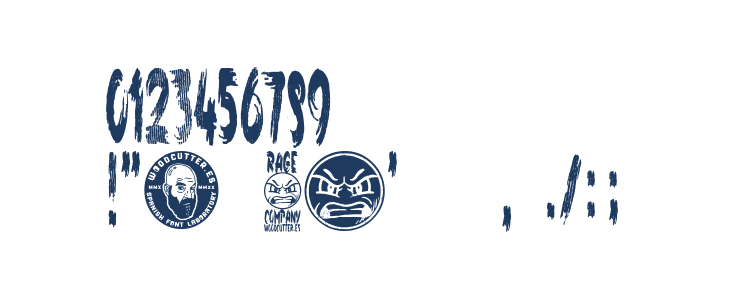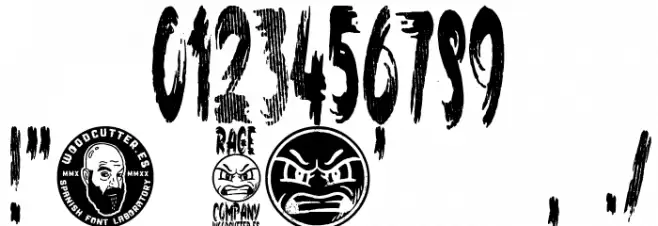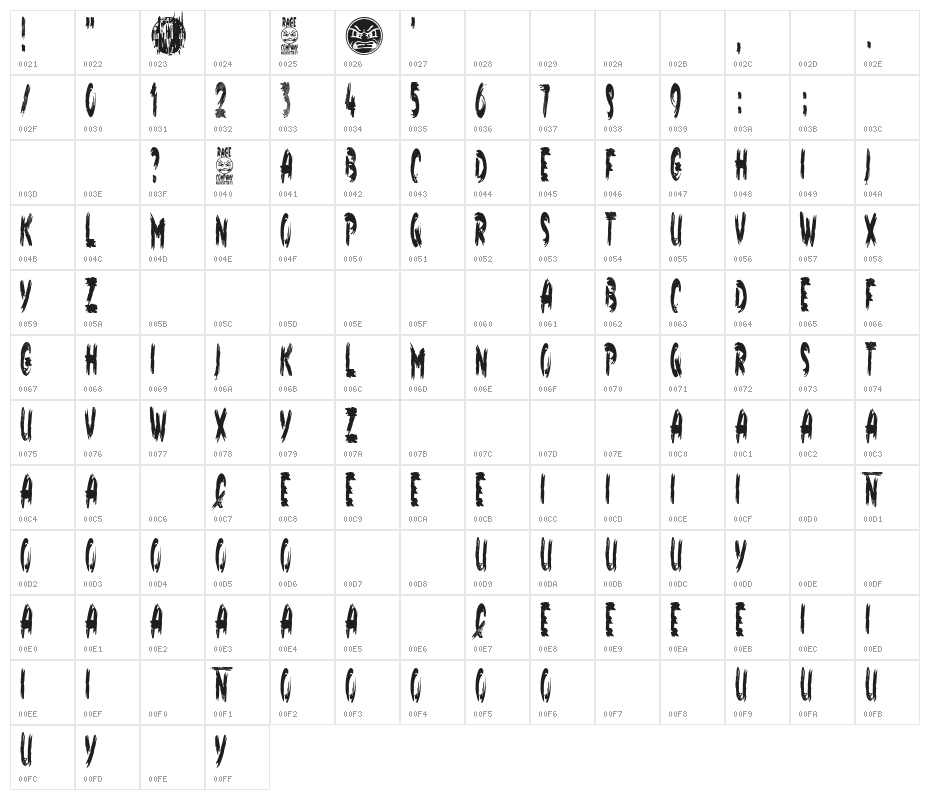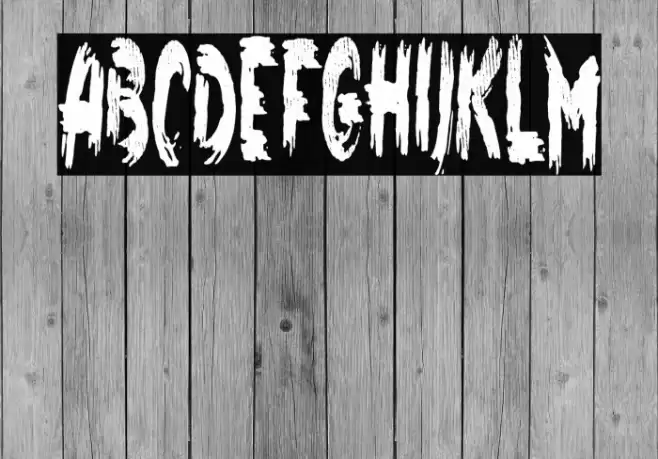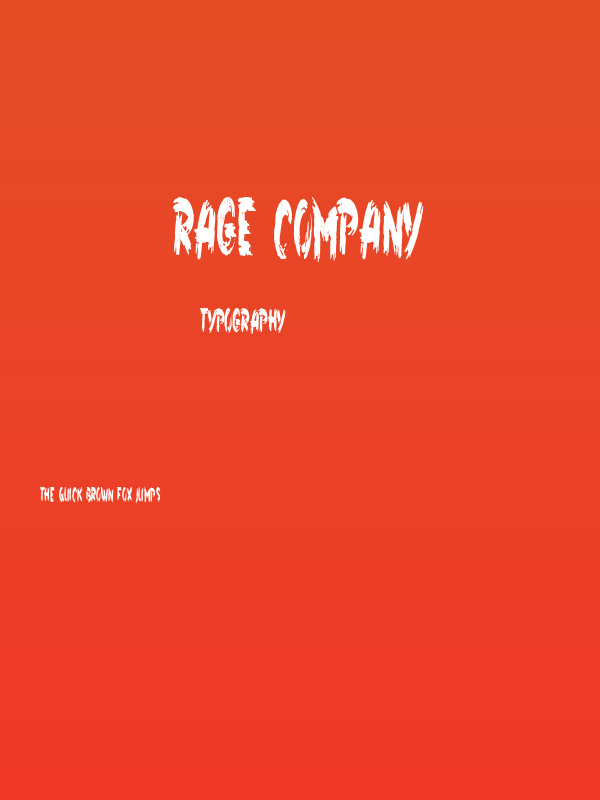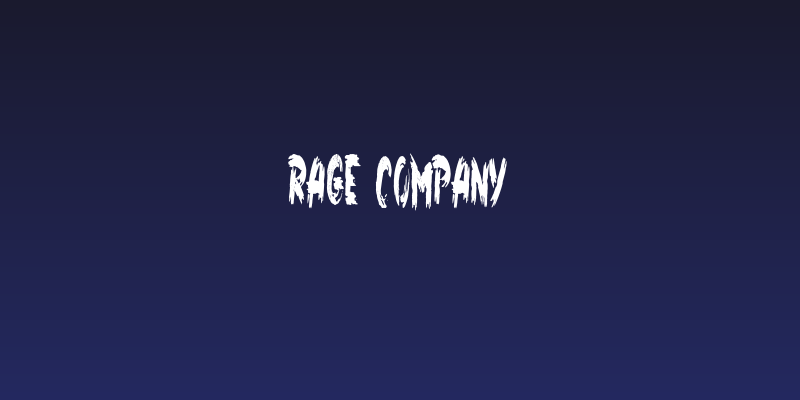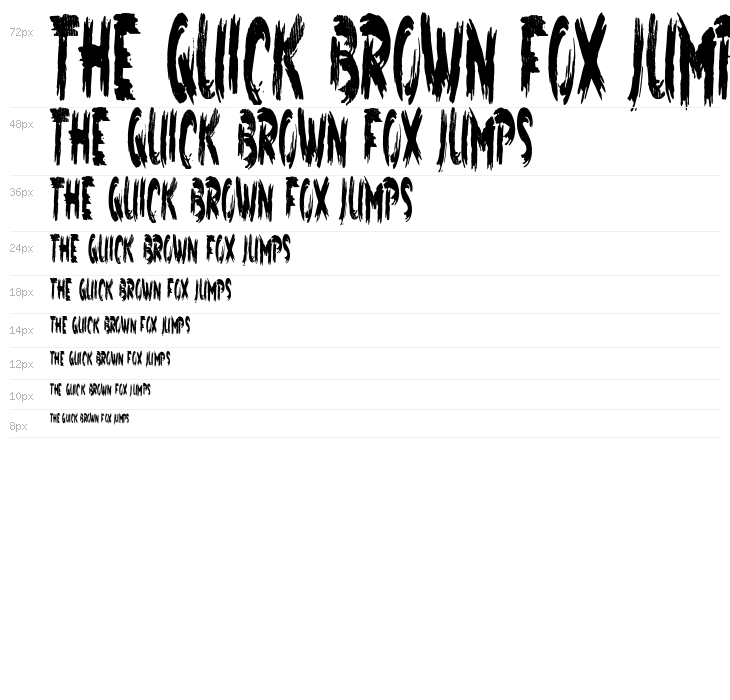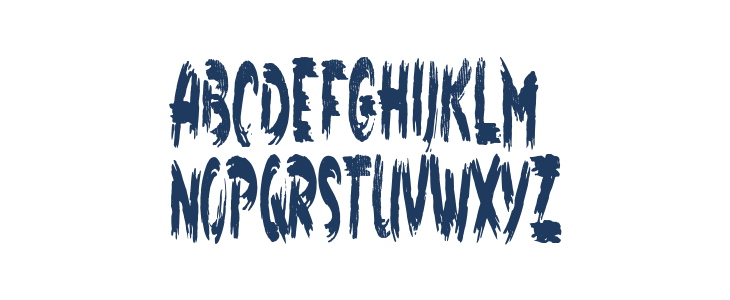
Rage Company Font
Rage Company Description
This font features a bold and aggressive style with a distressed, brush-like texture. The characters are uneven and jagged, giving a raw and energetic feel. The uppercase and lowercase letters maintain a consistent rugged appearance, while the numbers and special characters follow the same dynamic and edgy design. The font's unique style makes it stand out, ideal for projects that require a strong visual impact.
| Overall Style | Modern, Edgy |
| Proposed Projects | Ideal for music album covers, movie posters, extreme sports branding, and edgy graphic design projects. |